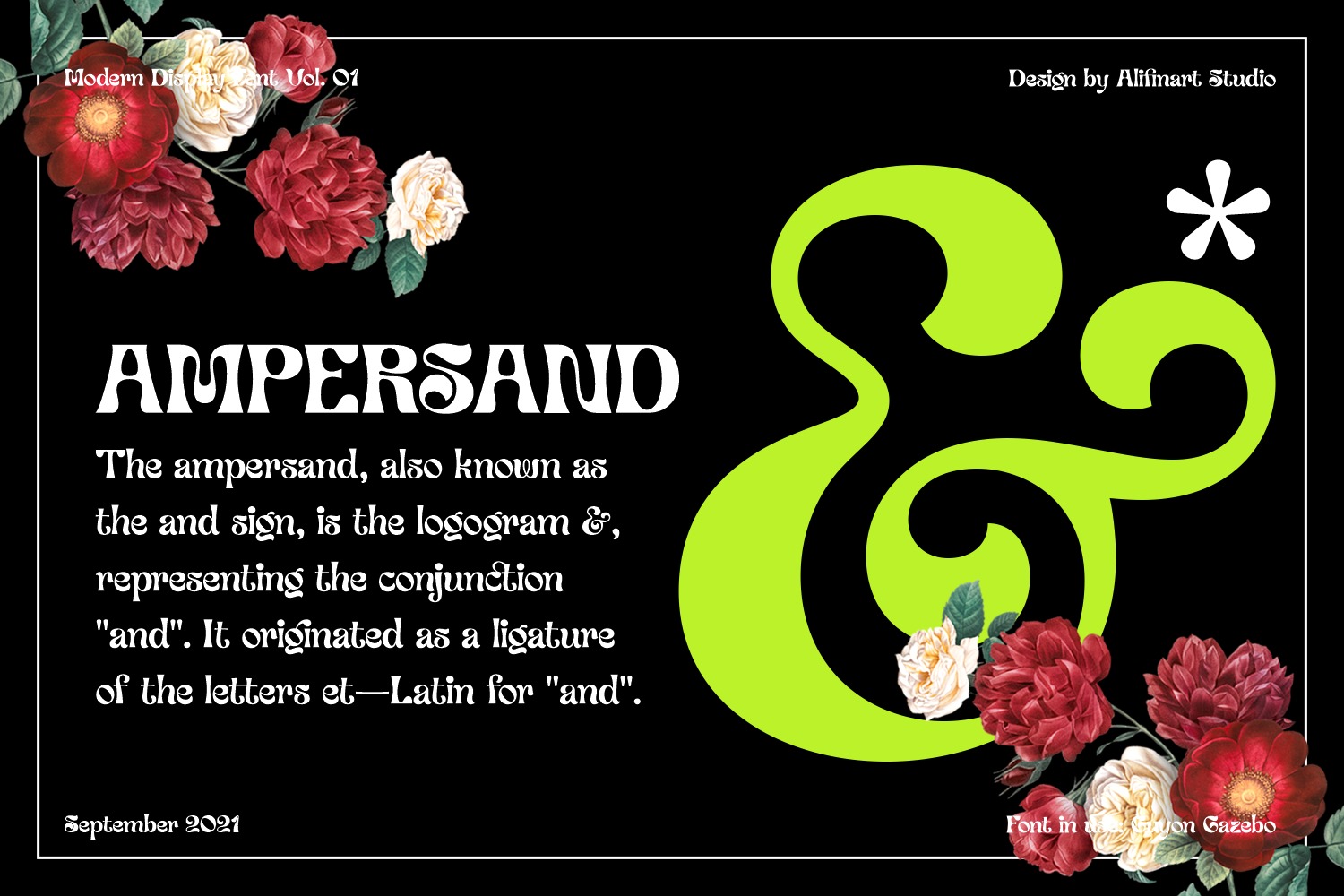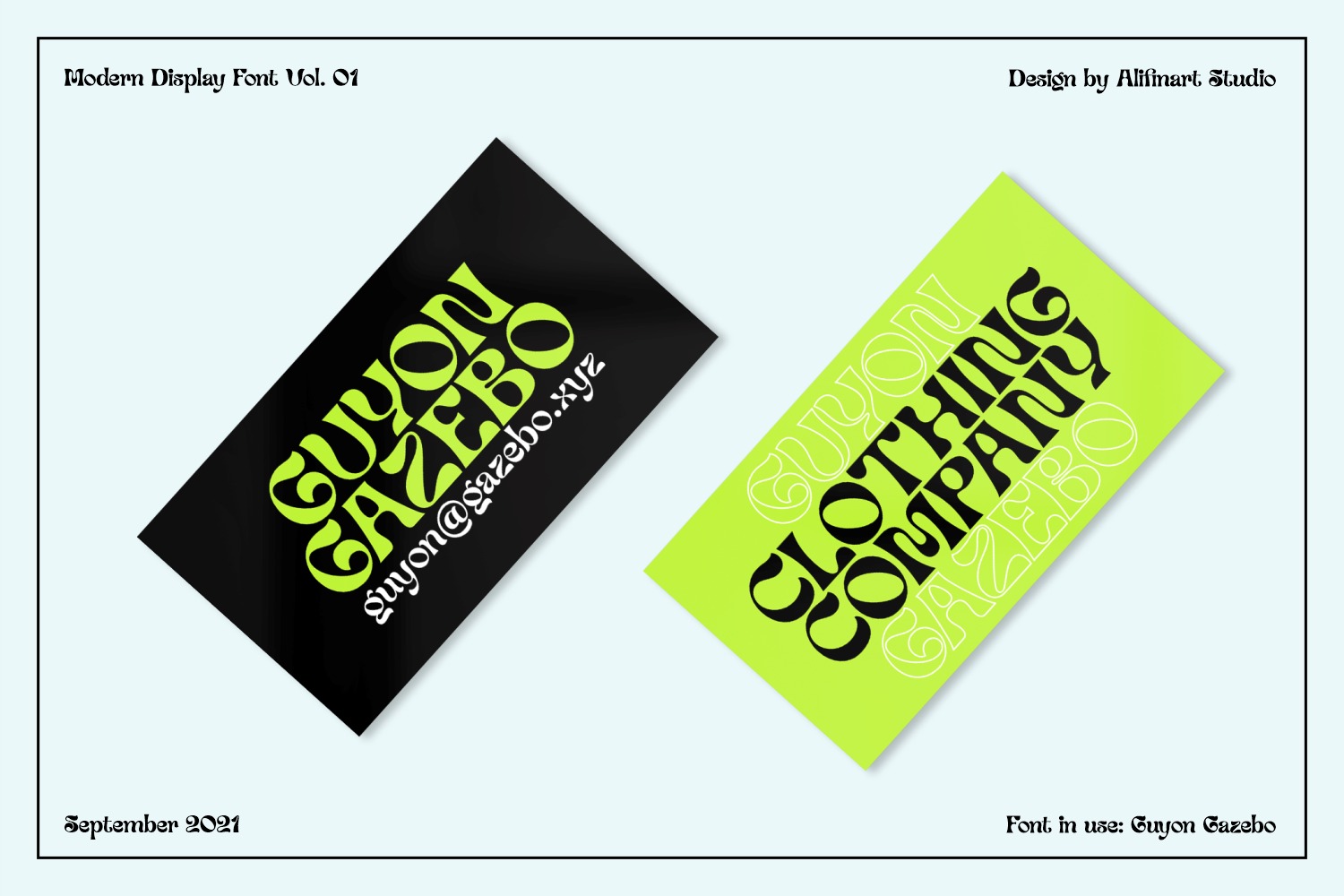
Guyon Gazebo Font
Guyon Gazebo Display Font
Guyon Gazebo is a luxurious display font has a unique style makes it great for creating bold headlines, branding, promotional materials or simply as a stylish text overlay to any background image. This font comes with high contrast strokes and has a slender stem and pointed terminals.
The Guyon Gazebo font has many standard and discretionary ligatures that will make your designs more attractive.
Typeface Story
Guyon Gazebo is a display font using a reverse contrast style with a sleek stem modification.
This font is inspired by 60s and 70s retro fonts, which have high contrast and dynamic style.
To make it look unique and amazing, Guyon Gazebo also adopts a Humanist Serif style font on some letters, such as the letter “O” which has an aperture with a diagonal axis.
The design on each letter is carefully crafted and shaped with a unique and authentic design, especially on the uppercase, lowercase, and numbers.
As a display font, Guyon Gazebo font should have great detail, as well as serif fonts in general. The reason is that the display font will appear in a large size and be more conspicuous than paragraph text. Therefore, this font must be able to show the beauty in every detail of the letter.
That’s why, many people like this font because it has a high appeal in every letter.
About Guyon Gazebo:
Guyon or it can also be said “Guyonan” has the meaning of joking. Can be done by one person (Stand-up Comedy) or by several people. The origin of the word Guyon itself comes from the Javanese language.
In rural areas, there is generally a traditional gazebo called “Cakruk”. That is a place to sit back or a post standby at night. Sometimes, it is also a place for jokes (guyonan) between local residents in the afternoon or evening.